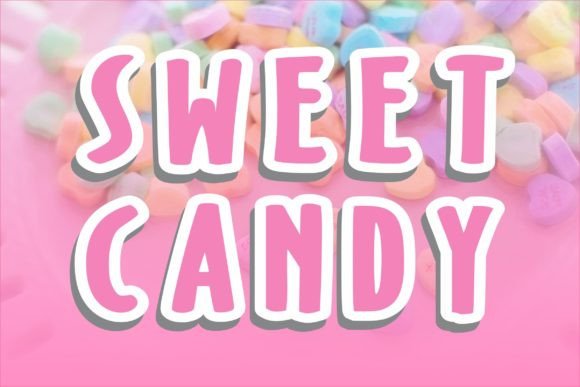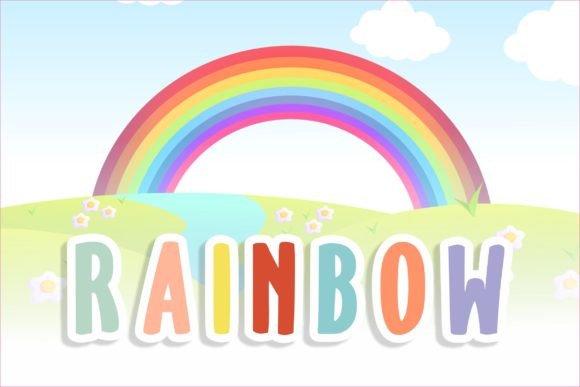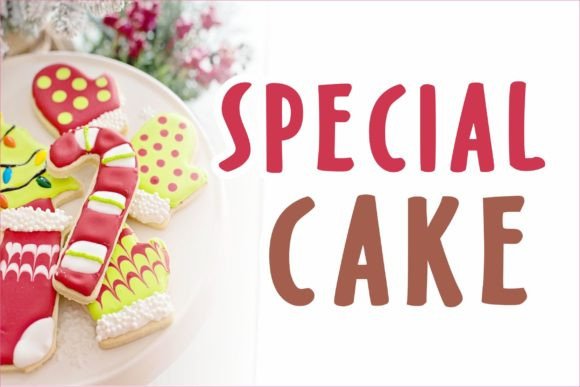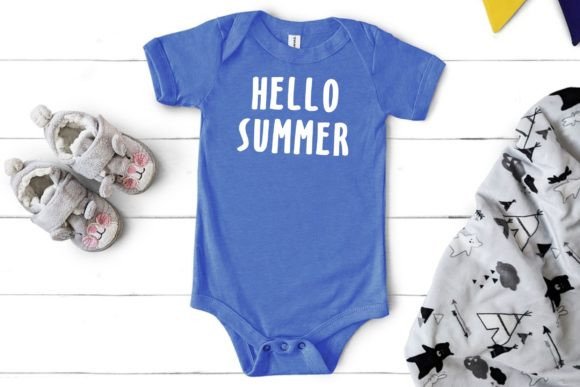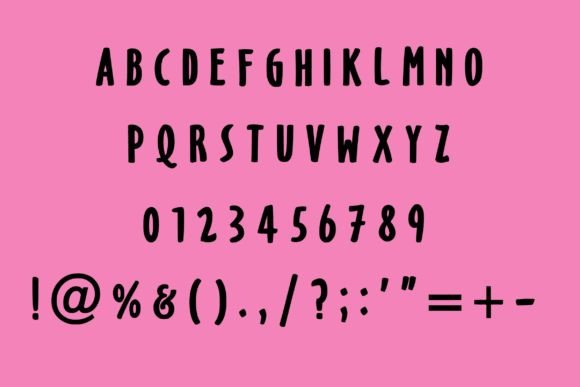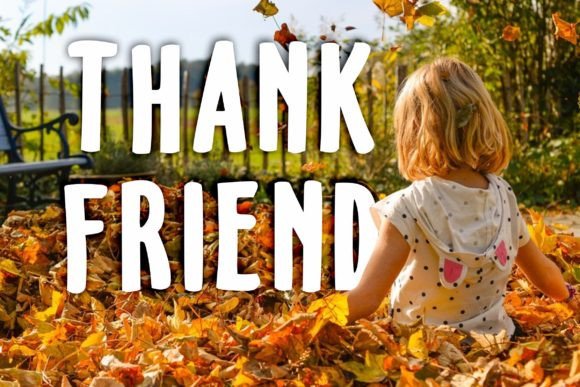
The Sweetest Font for Kids and Fun Designs: A Deep Dive into Candy Small Font
I’ll never forget the time I was working on a children’s book project, and I just couldn’t find the right font to match the playful and whimsical illustrations. The client wanted something that would appeal to kids, but also look professional and polished. That’s when I stumbled upon Candy Small Font, and it completely transformed my design. In this article, I’ll share my experience with this delightful font, its features, and how to make the most of it in your creative projects.
An Honest Review of Candy Small Font
Candy Small Font is a kids’ and fun display font designed to make your creative projects extraordinary! Here’s what I love about it:
• ✨ Playful and whimsical design: The font has a sweet, bubbly feel that’s perfect for kids’ projects, stickers, and invitations.
• ✅ Highly versatile: It works well for various applications, including shirts, book covers, social media posts, and more.
• 🎉 Easy to read: Despite its playful nature, the font remains clear and legible, even at smaller sizes.
However, I did notice a few minor quirks:
• 🤔 Limited use for formal projects: Due to its playful nature, Candy Small Font might not be the best fit for formal or professional projects.
• ⚠️ Some glyphs may require manual adjustment: Depending on the platform you’re using, you might need to manually adjust some glyphs to get the best results.
The Designer Inspiration Behind Candy Small Font
Candy Small Font was designed with the intention of creating a fun, playful font that would bring joy to kids and designers alike. The designer wanted to create a font that would be perfect for kids’ projects, invitations, and educational materials. With its sweet, bubbly design, Candy Small Font is sure to bring a smile to anyone’s face.
What is Candy Small Font best used for? Candy Small Font is perfect for kids’ projects, invitations, stickers, book covers, and social media posts.
Is Candy Small Font easy to read? Yes, despite its playful nature, Candy Small Font remains clear and legible, even at smaller sizes.
Does Candy Small Font support OpenType features? Yes, Candy Small Font supports OpenType features, such as stylistic alternates and glyphs, which can be accessed in compatible software.